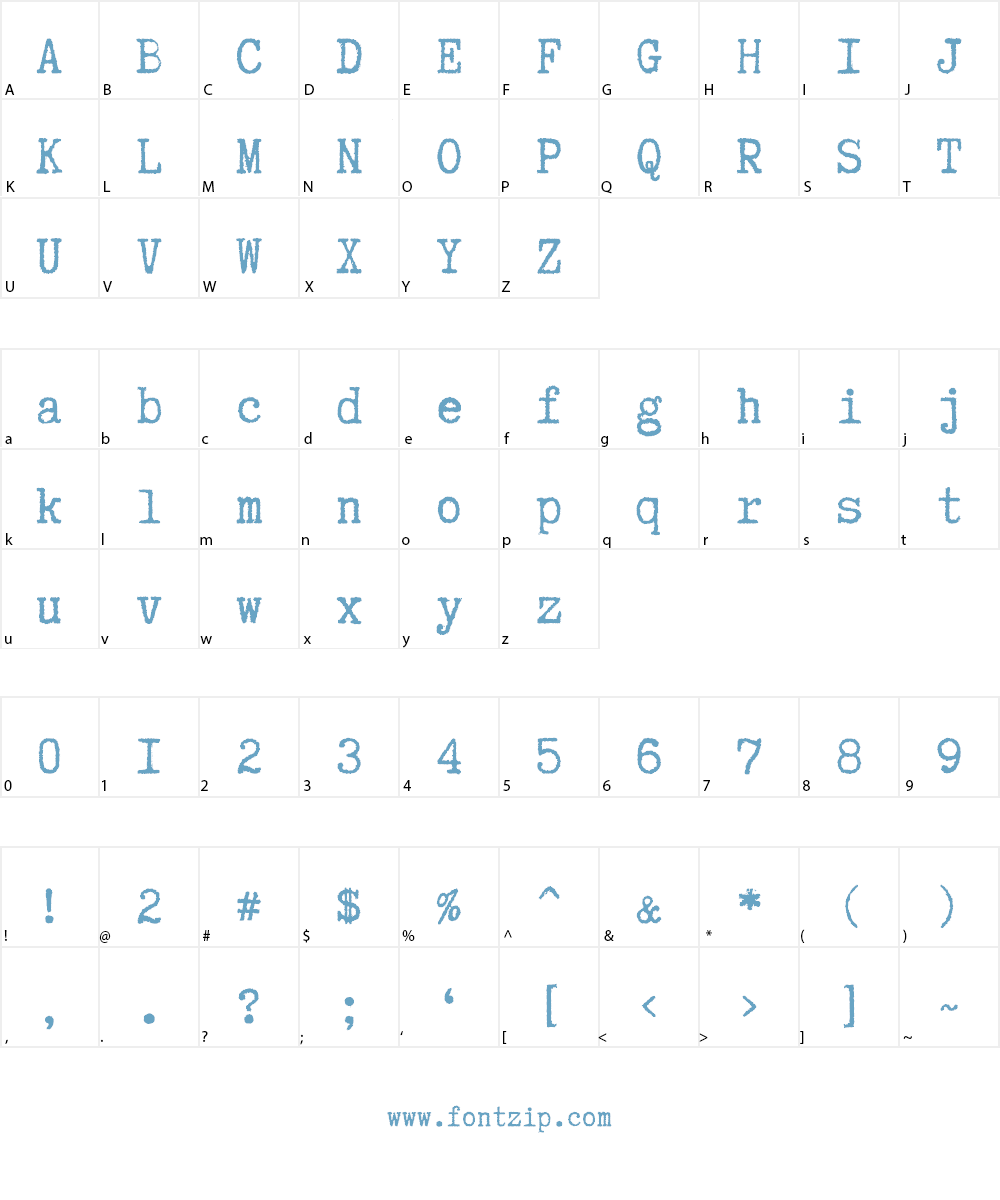
Truetypewriter PolyglOTT font software is designed to simulate a text typed on a standard typewriter. In contrast with other analogical fonts Truetypewriter PolyglOTT was made not as a decorative typeface imitating an "old", "broken", "dirty" and so on... typewriter. It was also not a goal to create an ideally correct typeface, but to reach maximum reality of the text appearance both on the screen and printed on paper. Besides, Truetypewriter PolyglOTT has a multilingual support and also includes a lot of archaic characters, thus allowing to print texts even in the languages for which there have never existed typewriters.
All the glyphs are either made manually (mostly) or based on scanned typewritten letters images. However, they are individually accurately edited in order to find a sensible compromise between the glyphs highly detailed elaboration and minimizing of the control points number. This helps to make a relatively small file size, at the same time preserving highly detailed elaboration.
It is recommended to use font size between 20 and 22 in order to simulate typically standard second half of the XX century typewritten characters.